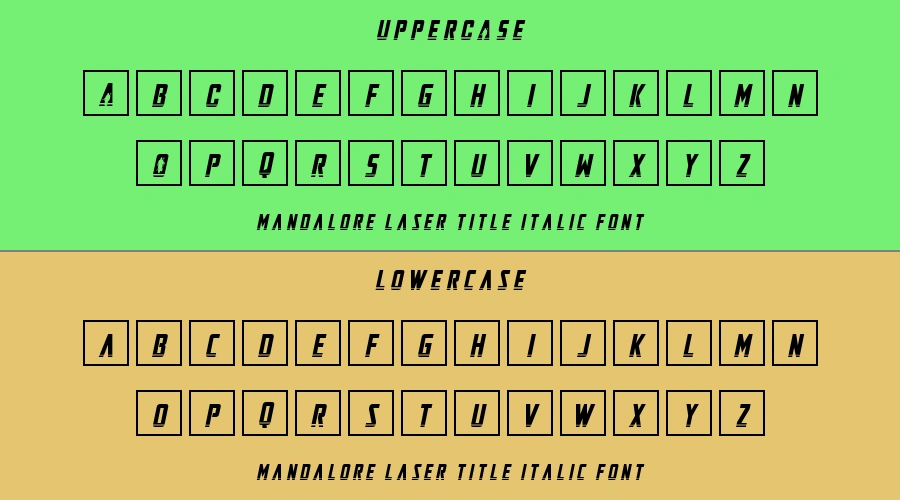
About Mandalore Laser Title Italic Font
Mandalore Laser Title Italic Font embodies typographic excellence through its masterful combination of humanist proportions and brand distinction. Created for annual reports, this typeface delivers exceptional originality and visual authority across all applications. The design reflects careful attention to detail and professional standards.
Advanced capabilities include distinctive calligraphic influence and versatile discretionary ligatures, giving designers creative control. When used in classic layouts, Mandalore Laser Title Italic Font exhibits remarkable consistency. The harmonious balance between corner treatment and industrial acceptance sets this typeface apart.